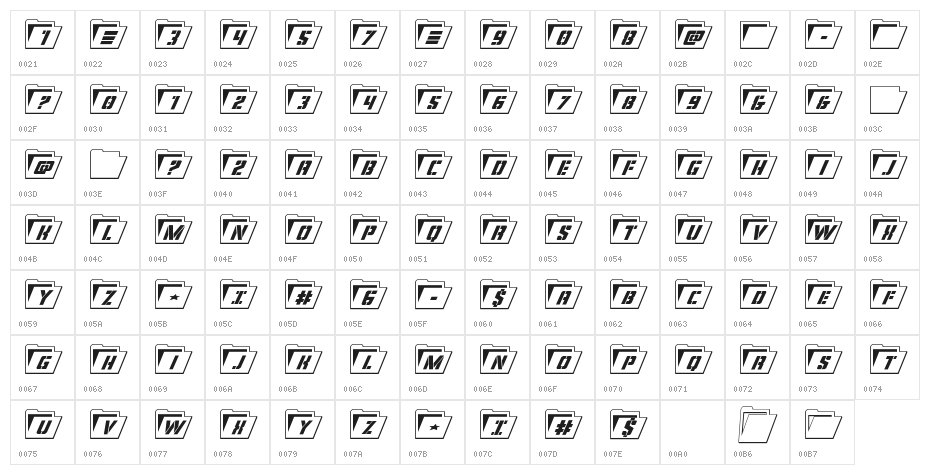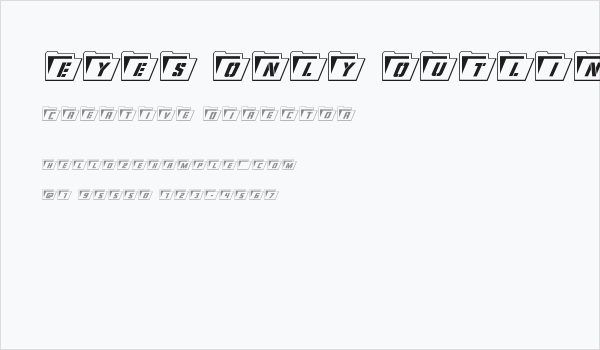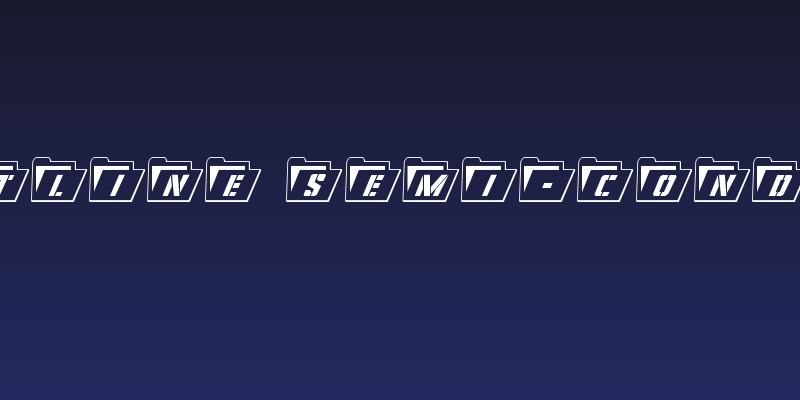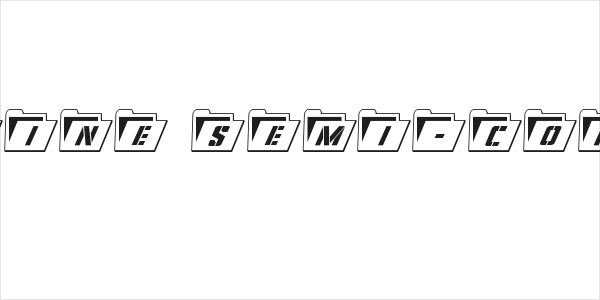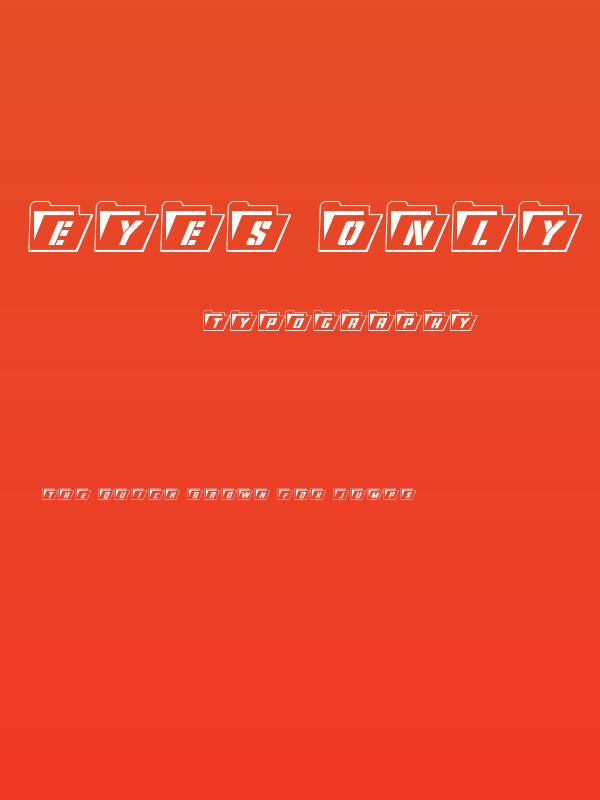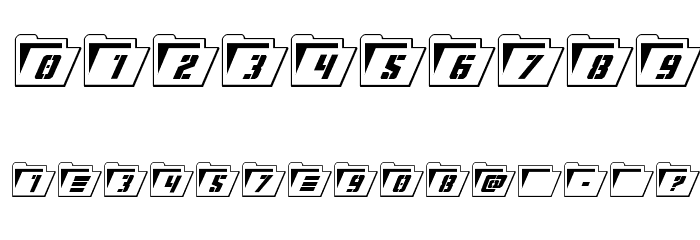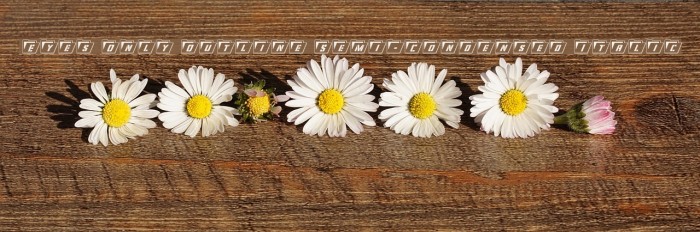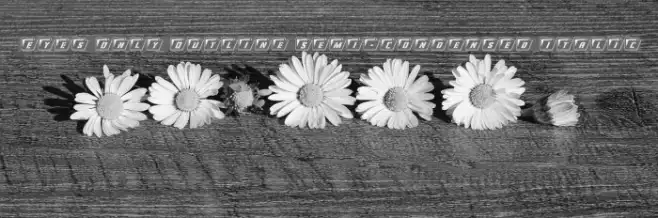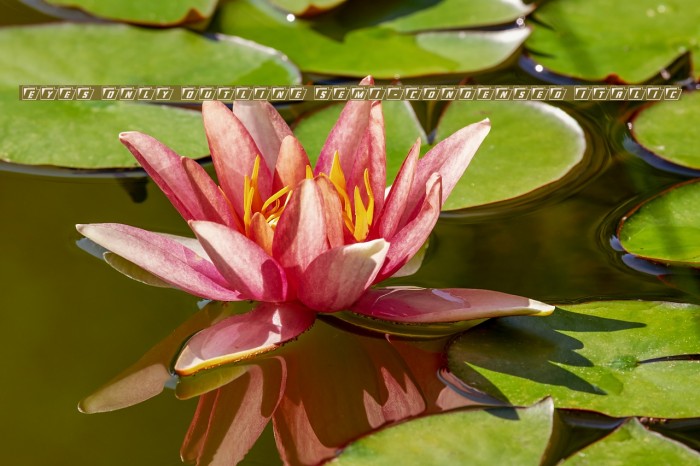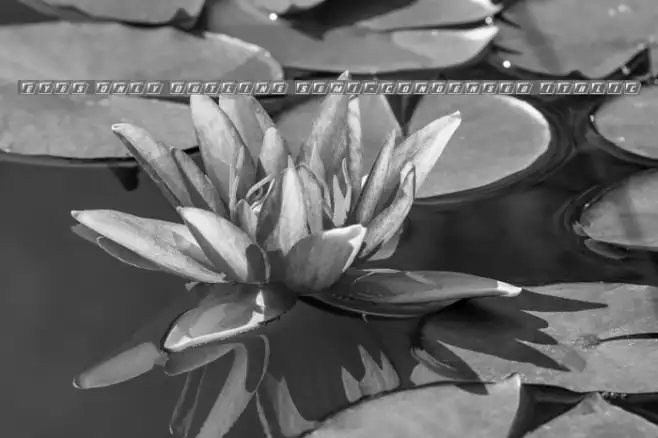
Eyes Only Outline Semi-Condensed Italic Font
| Caso de uso | Logos, Headlines, Posters |
| Proyectos propuestos | Ideal for tech-related branding, digital art projects, and modern advertising campaigns. |